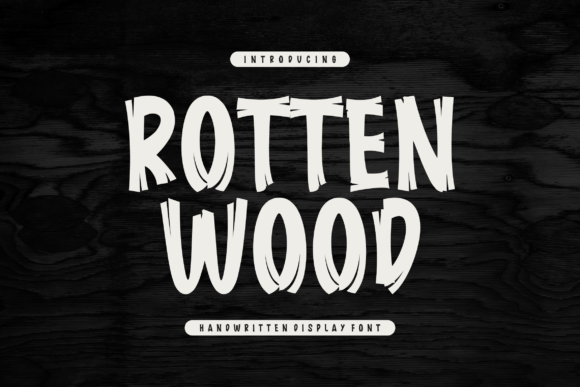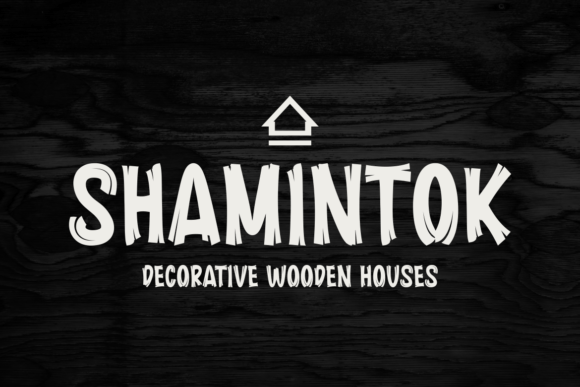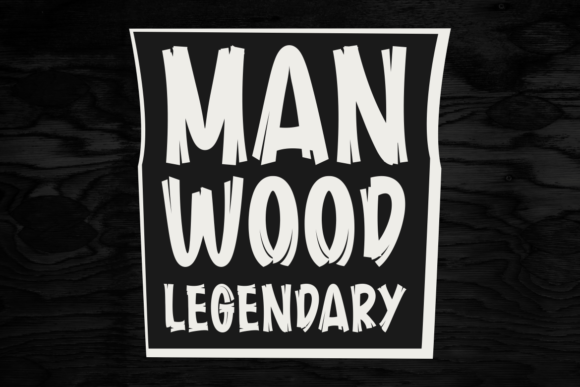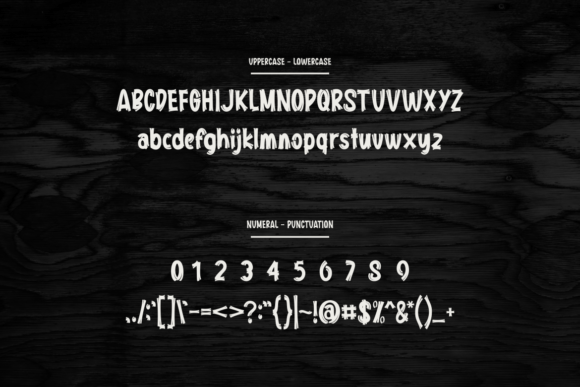
Rotten Wood Font: A Bold Rustic Display Font for Unique Designs
About the Rotten Wood Font
Get ready to be inspired by Rotten Wood Font, a fresh and dynamic typeface for modern creators. Rotten Wood is a cool and unique display font that exudes an edgy character. With its distinctively uneven letterforms and weathered texture, this font captures the essence of rustic authenticity. Ideal for projects seeking an unconventional and bold aesthetic, Rotten Wood adds a raw and impactful flair to your designs.
Rotten Wood excels in headlines, posters, and short impactful branding elements where its bold, uneven texture creates a strong visual statement. It’s perfect for projects with a grunge, vintage, or rustic theme, lending itself well to projects like album art, apparel designs, or event posters. Avoid using it for body copy or UI elements; the inconsistent letterforms hinder readability in extended text.
Pairing Rotten Wood effectively requires a contrasting typeface to balance its rough edges. A clean sans-serif like Futura or a classic serif like Garamond would create a sophisticated juxtaposition. For a more rugged feel, consider a geometric sans-serif such as Montserrat.
Its core personality is rebellious and raw, conveying a sense of authenticity and unconventionality. This makes it unsuitable for projects requiring elegance or sophistication.
Rotten Wood Font Example